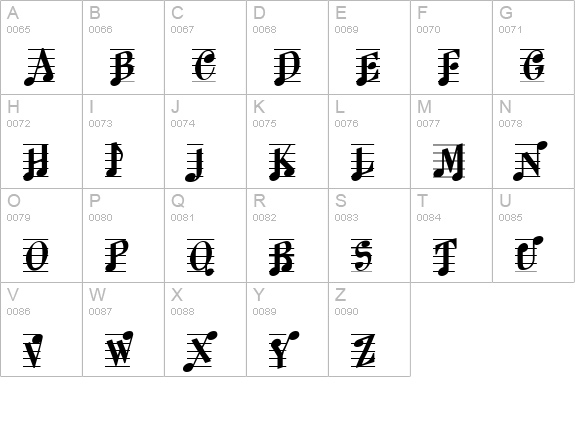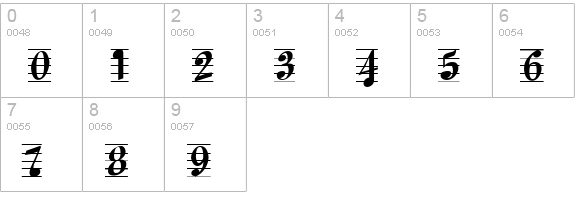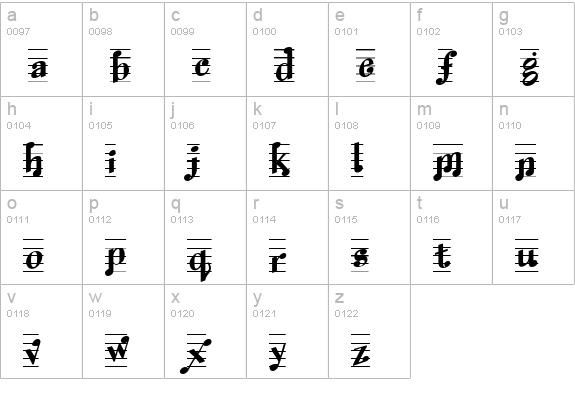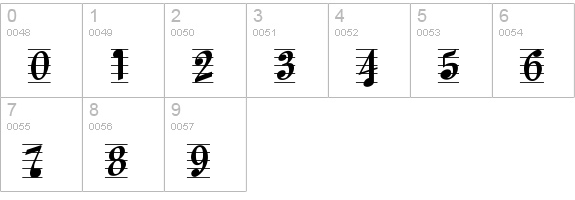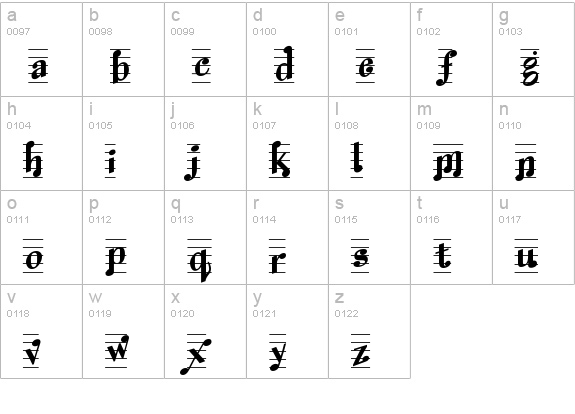
Melody Maker Font Details
Introducing Melody Maker font, a whimsical and charming typeface designed to add a touch of playfulness to your designs. This delightful font features elegant curves and stylish swashes, making it perfect for a variety of projects such as invitations, logos, and branding materials. With its unique and eye-catching appearance, Melody Maker font will effortlessly capture the attention of your audience. Best of all, Melody Maker font is available for free download at FontsMarket.com. So why wait? Add a touch of creativity and fun to your projects today with Melody Maker font.